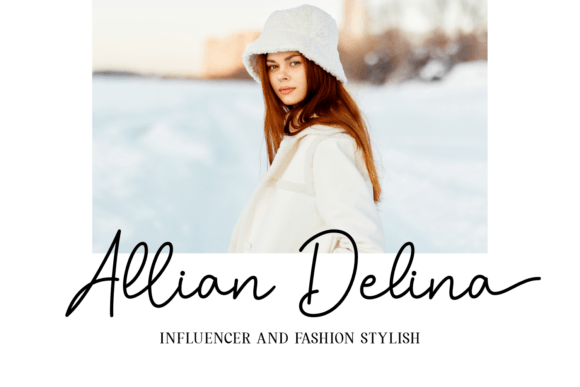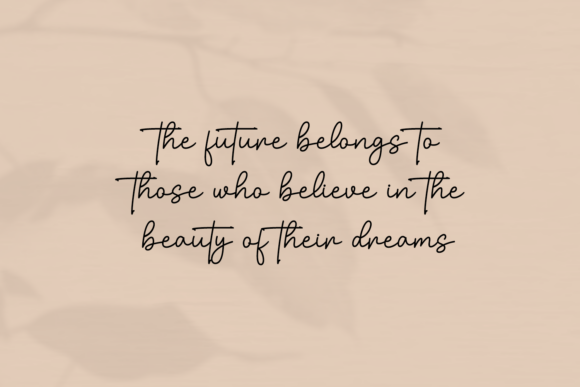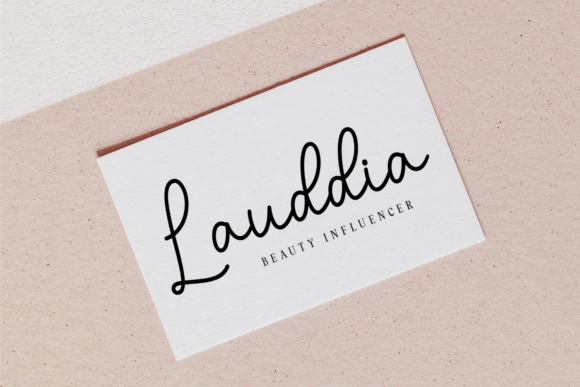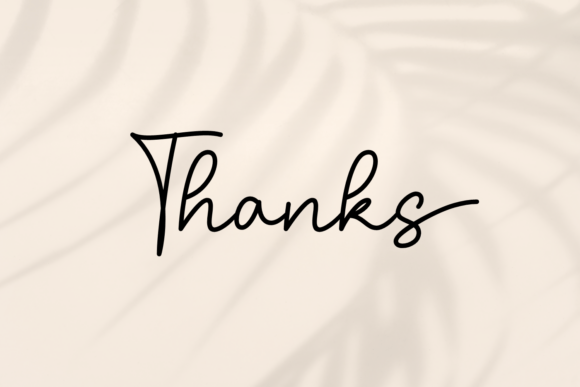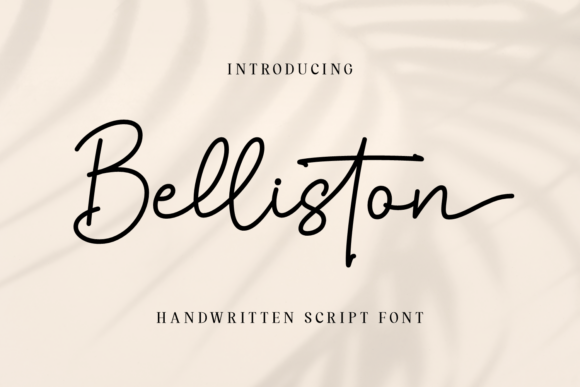
Belliston Font: Elevate Your Designs with a Stylish Handwritten Script
In the world of typography, few fonts manage to convey warmth and friendliness as effectively as the Belliston Font. This stylish handwritten script font has been gaining popularity among designers and crafters for its smooth, flowing letters and charming artistic touch. Whether you’re working on invitations, greeting cards, or personal projects, Belliston Font is an excellent choice to add a personal and elegant feel to your designs.
What Makes Belliston Font Stand Out?
Belliston Font boasts a unique combination of characteristics that set it apart from other fonts. Here are a few key features:
• Smooth and Flowing Letters: The font’s smooth, cursive letters create a sense of fluidity, making it perfect for designs that require a touch of elegance.
• Warm and Friendly Look: Belliston Font exudes a warm and welcoming vibe, making it ideal for projects that require a personal touch.
• Easy to Read: Despite its artistic nature, Belliston Font remains highly legible, ensuring that your message is conveyed clearly.
• Charming Artistic Touch: The font’s handmade feel adds a charming, artistic touch to any design, setting it apart from more traditional fonts.
Belliston Font is a versatile font that can be used in a wide range of creative projects. Here are some ideas to get you started:
• Invitations: Add a touch of elegance to your wedding invitations, birthday party invites, or baby shower announcements.
• Greeting Cards: Create personalized greeting cards for special occasions, such as holidays, birthdays, or thank-you notes.
• Personal Projects: Use Belliston Font to add a personal touch to your scrapbooking, journaling, or craft projects.
• Digital Designs: Incorporate Belliston Font into your digital designs, such as social media graphics, blog headers, or website titles.
Tips for Using Belliston Font Effectively
To get the most out of Belliston Font, here are some tips to keep in mind:
• Pair with Complementary Fonts: Combine Belliston Font with complementary fonts to create visual interest and hierarchy in your designs.
• Experiment with Colors: Play with different colors to find the perfect match for your design. Belliston Font looks great in both bright and muted color schemes.
• Use for Headings and Titles: Take advantage of Belliston Font’s elegant feel by using it for headings and titles. This will add a touch of sophistication to your designs.
Belliston Font is a beautiful, stylish handwritten script font that can elevate your designs with its smooth, flowing letters and warm, friendly look. With its ease of use and versatility, it’s perfect for a wide range of creative projects, from invitations and greeting cards to personal projects and digital designs. By incorporating Belliston Font into your design toolkit, you’ll be able to add a charming, artistic touch to your work and create stunning designs that leave a lasting impression.